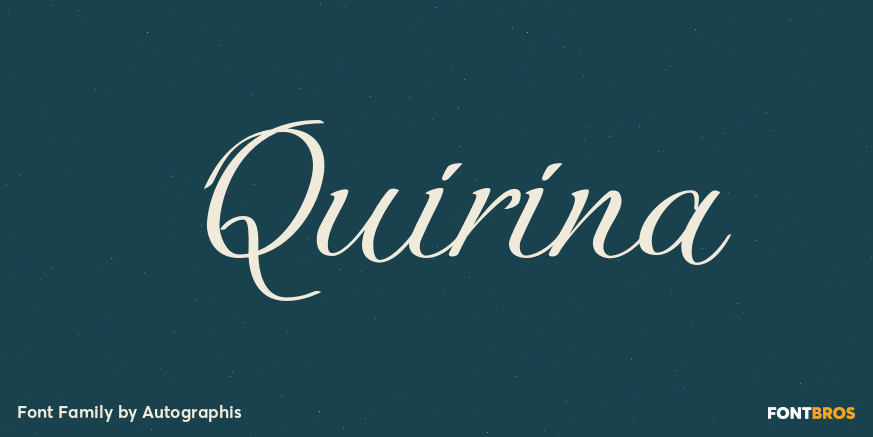
HomeFont BrosScripts: CasualQuirina Scripts: CasualScripts: Formal Quirina FacebookXPinterestWhatsApp 1 of 1 About Quirina is a very elegant joining Script that has ? because of its high and open lowercase letters ? excellent readability. It has a fat twin called Quiana.  DOWNLOAD ON FONT BROSThis font is sold and delivered by Font Bros. Font Canyon may earn a commission if you buy through this link. People also explored Makota Font Queen Selyna Font Rellos Font Writing Font Chubby Vanila Font Tiger Split Font Mother Kitchen Font Hanging Font 316 0 TagsQuirinaQuirina Font Previous articleThrifty NumeralsNext articleChristmas Glow LEAVE A REPLY Cancel reply Comment: Please enter your comment! Name:* Please enter your name here Email:* You have entered an incorrect email address! Please enter your email address here Website: Save my name, email, and website in this browser for the next time I comment. Personal Use Free Forturn Personal Use Free Read more about this font Sathscha Personal Use Free Read more about this font Starting Live Personal Use Free Read more about this font Huntry Personal Use Free Read more about this font BLOG Fonts That Capture the Spirit of New York City New York City is more than just a place—it’s an experience, a rhythm, a visual language... Modern Sans-Serif Fonts That Brands Love in 2025 Elegant Wedding Invitation Fonts – Handwritten & Script Fonts Free Fonts Risk: Why Free Fonts Can Be Dangerous for Designers